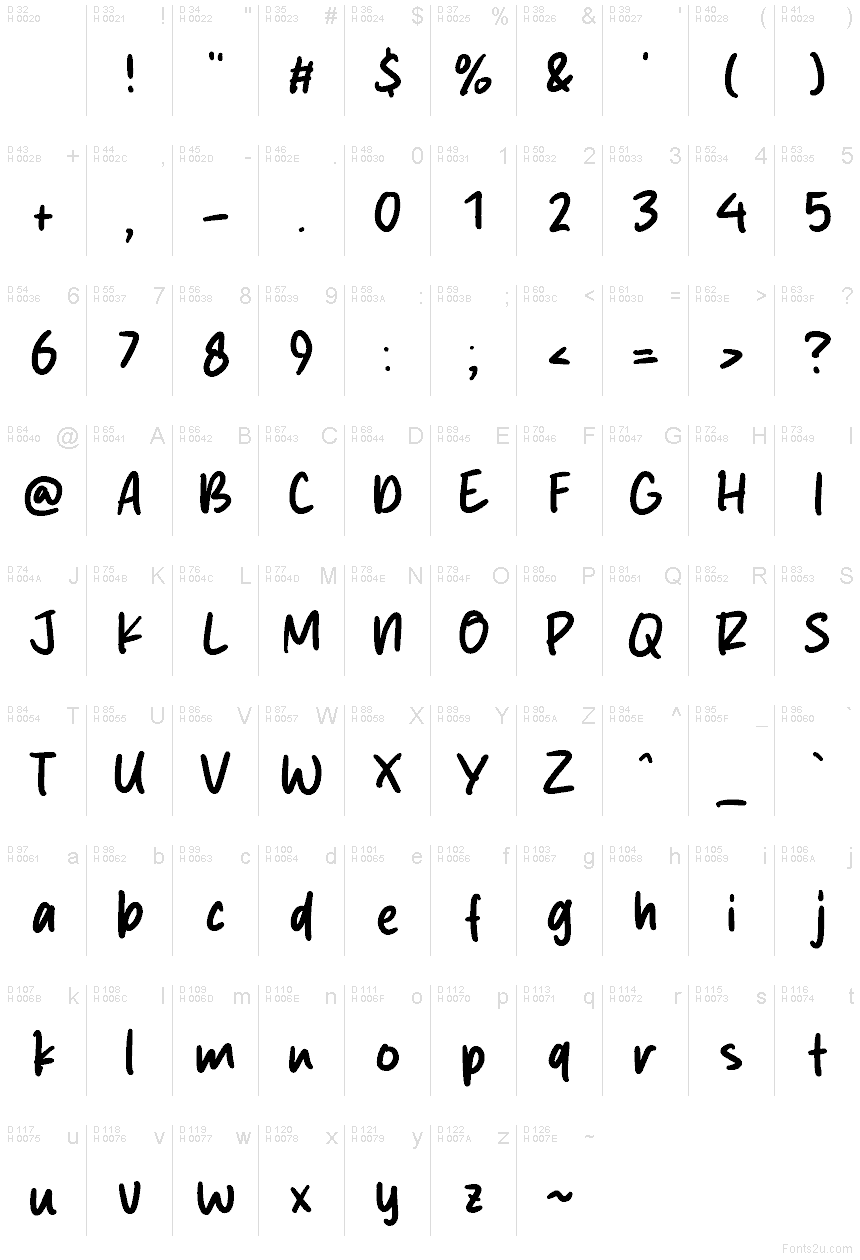
Shell Crabs
Shell Crabs font by MJType features a casual, approachable appearance and a fun, modern vibe. Its unique handwritten style has an authentic flair that connects easily to audiences, giving each presentation and design project it is used in a personalized feel.
Ideas for this free handwritten font include book covers, movie titles, TV series episode intros, blogs and magazine sections’ headlines amid other projects.